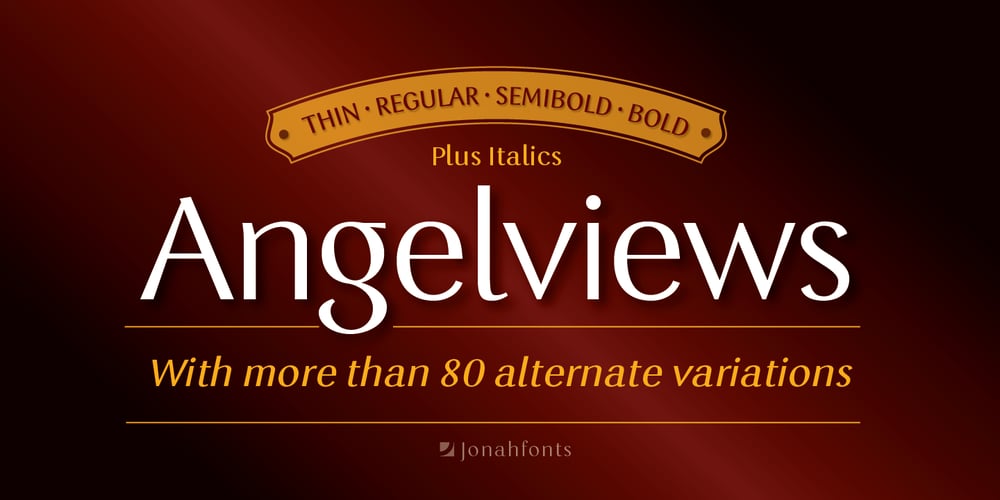
Angelviews Font Family was designed by John Nahmias and published by Jonahfonts. Angelviews contains 8 styles and family package options. Angelviews a sans serif font with over 80 variations in the lower case, including Latin and Central European diacritics. Alternates in the lower case can be involked in ONE FELL SWOOP with the the Contextual Alternate Opentype feature (calt), or by selecting each single Alternate (aalt).There are some faint differences in the lower case glyphs but enough to give the designer a creative choice in texts or small captions.